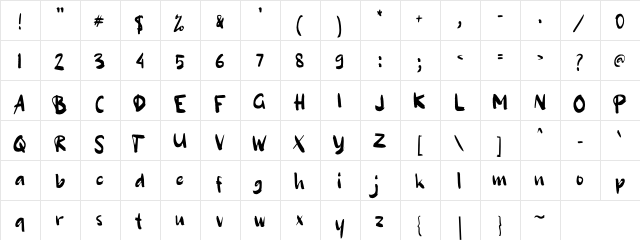
a Agen Giveaway Regular Font Preview
a Agen Giveaway Regular
a Agen Giveaway Regular Font Details
| Designer | Wahyu Eka Prasetya |
Design Context for a Agen Giveaway Typeface
a Agen Giveaway is a composed and adaptable typeface that performs quietly and consistently across a wide range of design contexts.